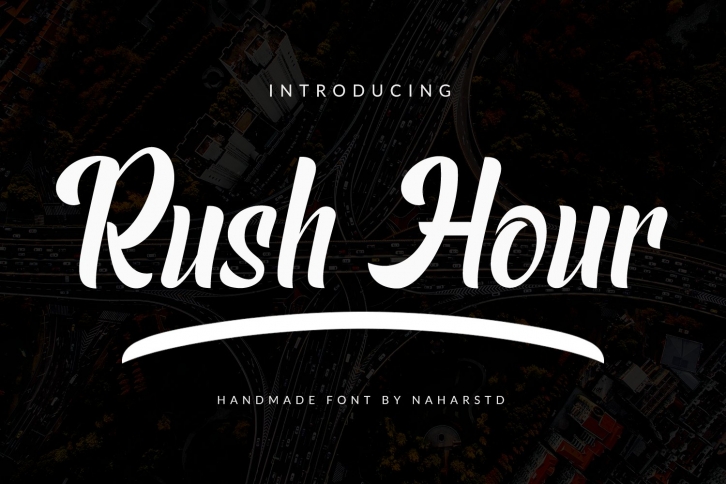
Rush Hour is Modern bold font with smooth curves. This font is great for Branding, Logo Design, Lettering, Logotype, Clothing, Poster, magazine, packaging, posters, shopping bags, t-shirts, book covers, photography, special events and other design project.